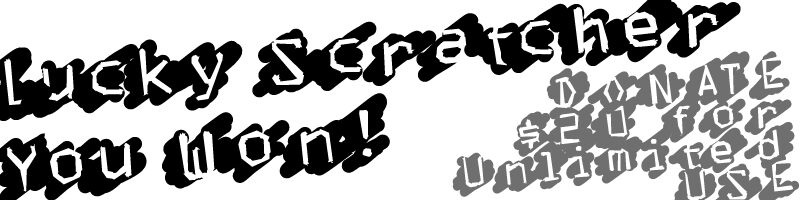
LuckyScratcher by Xerographer Fonts is a free eroded decorative display font with jagged forms. Uneven letters alternate broad slabs with narrow strokes and sharp edge notches. A rough offset shadow gives the lettering a pasted-up street-poster look.
On music merchandise, its aggressive silhouette turns a band name into artwork. It also fits skate graphics and horror posters. The chipped cuts echo torn paper and scratched paint, linking the type to distressed illustration.
LuckyScratcher